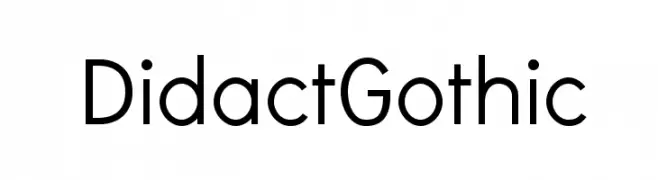
). ) A clean, modern sans-serif font with excellent readability and geometric uniformity.
). ) A modern, rounded sans-serif font with excellent readability and geometric influence.
). ) A modern, geometric sans-serif font with clean lines and uniform stroke width.
). ) A modern, geometric sans-serif font with low contrast and high legibility.
). ) A modern, geometric sans-serif font with rounded edges and uniform strokes.